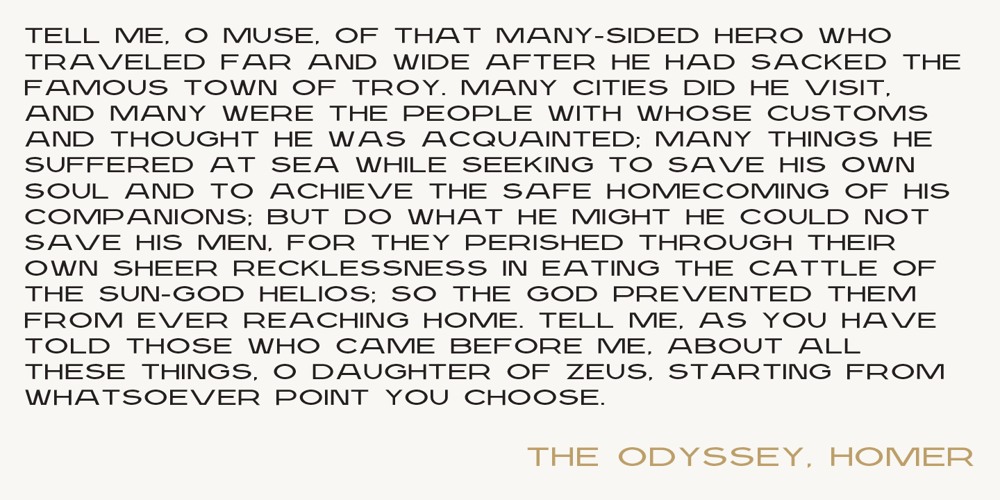
Chartreux
Chartreux font
Chartreux Font Family was designed by Thoma Kikis and published by TEKNIKE. Chartreux contains 3 styles and family package options. Chartreux is a geometric monospaced display sans typeface which has a distinct uppercase style and is inspired by the early Twentieth-Century era. The Chartreux name is derived from a rare breed of domestic cats, descending from the Chartreuse Mountains in France. Chartreux is recommended for luxury brands, logos, fashion, cinema, architecture, invitations, display work, posters and headings.